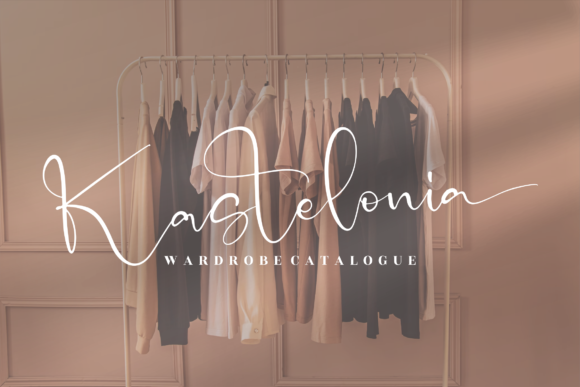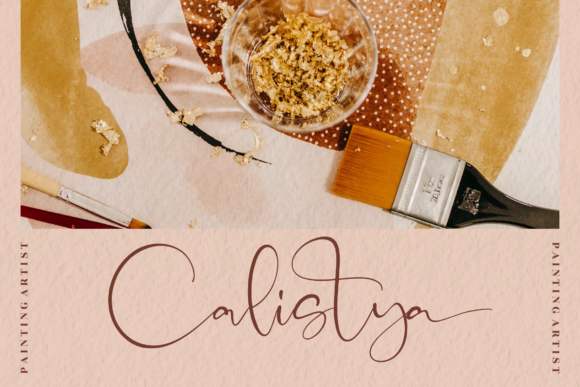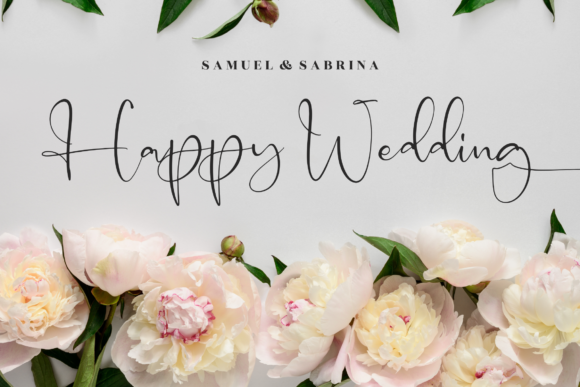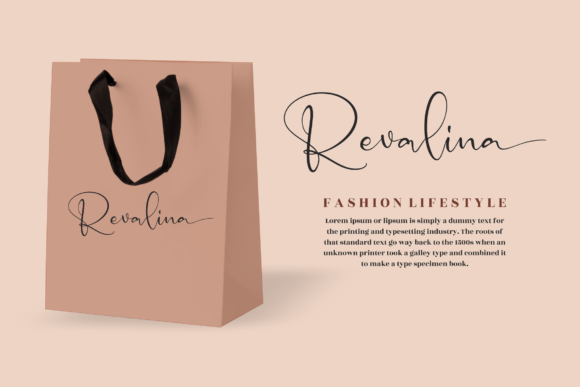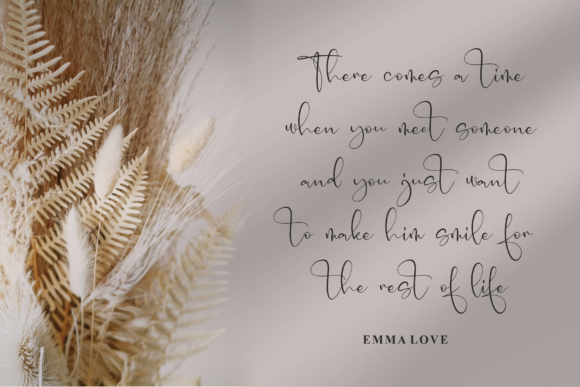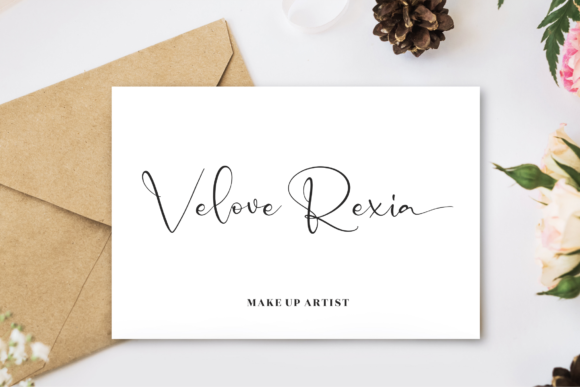
Catalistefa Signature Font: Elevate Your Designs with Elegance and Class
In the world of typography, a font can make or break the aesthetic of a design. For those seeking a touch of elegance and sophistication, Catalistefa Signature Font is an exquisite choice. This lovely and delicate script font is specifically crafted for designers and crafters who desire a beautiful and refreshing look for their projects.
The Essence of Catalistefa Signature Font
Catalistefa Signature Font is a meticulously designed script font that embodies the perfect blend of elegance and refinement. Its delicate strokes and curves are carefully crafted to add a touch of sophistication to any design. Whether you’re working on a branding project, wedding invitation, or a digital platform, this font is sure to elevate your design to new heights.
Key Features of Catalistefa Signature Font
- Delicate and Elegant: Catalistefa Signature Font boasts a delicate and elegant design, perfect for adding a touch of sophistication to your projects.
- Script Font: This font features beautiful script strokes, making it ideal for designs that require a personal and luxurious feel.
- Refreshing Look: The font’s unique design ensures that your designs stand out from the crowd, providing a refreshing look that’s sure to captivate your audience.
- Versatile: Catalistefa Signature Font can be used for a wide range of design projects, from branding and advertising to wedding invitations and digital platforms.
Who Can Benefit from Catalistefa Signature Font?
Catalistefa Signature Font is perfect for:
- Graphic Designers: Add a touch of elegance to your designs and take your clients’ branding to the next level.
- Wedding Planners and Coordinators: Create stunning wedding invitations, stationery, and signage that exude luxury and sophistication.
- Digital Artists and Illustrators: Use Catalistefa Signature Font to add a touch of refinement to your digital art and illustrations.
- Crafters and DIY Enthusiasts: Elevate your crafting projects, such as handmade cards, gift tags, and scrapbooking, with this beautiful font.
Tips for Using Catalistefa Signature Font
To get the most out of Catalistefa Signature Font, consider the following tips:
- Pair with Neutral Colors: Combine the font with neutral colors to let the elegance of the font shine through.
- Use for Headings and Titles: Catalistefa Signature Font is perfect for headings and titles, adding a touch of sophistication to your designs.
- Experiment with Ligatures: Take advantage of the font’s ligatures to add a touch of uniqueness to your designs.
Catalistefa Signature Font is a stunning script font that offers a unique blend of elegance and refinement. With its delicate strokes and curves, this font is perfect for designers and crafters seeking to add a touch of sophistication to their projects. Whether you’re working on a branding project, wedding invitation, or digital platform, Catalistefa Signature Font is sure to elevate your design to new heights. So why wait? Download Catalistefa Signature Font today and experience the power of elegant typography.